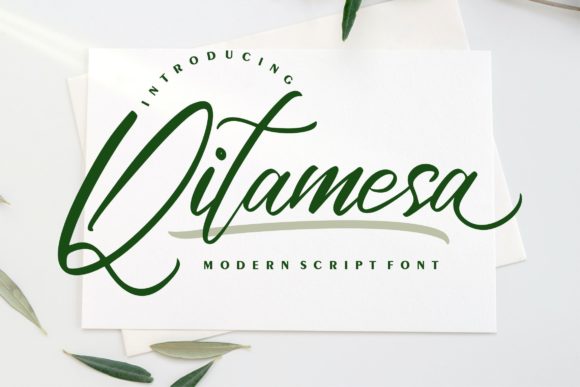
Qitamesa Script: A Calligraphic Font for Modern Creativity
Fonts play a crucial role in visual communication, and among the many script fonts available today, Qitamesa Script stands out for its elegant design and versatility. Designed with a calligraphy-inspired aesthetic, this font blends traditional artistry with modern usability, making it a valuable asset for professionals across various creative fields.
The Art of Qitamesa Script
Qitamesa Script is a hand-drawn font that captures the essence of calligraphy while maintaining a clean and readable structure. Its flowing lines and subtle variations in stroke width give it a natural, organic feel that mimics the work of a skilled calligrapher. This makes it particularly well-suited for projects where a personal or artistic touch is desired.
What sets Qitamesa Script apart is its balance between elegance and practicality. While it has the fluidity of a handwritten script, it avoids excessive ornamentation that could compromise legibility. This ensures that it remains effective even in professional settings such as branding materials, business cards, and digital content.
Key Characteristics of Qitamesa Script
Several features make Qitamesa Script a compelling choice for designers and creators:
- Elegant Flow: The font's curves and transitions are smooth and rhythmic, creating a visually pleasing effect that draws attention without overwhelming the reader.
- High Legibility: Despite its script style, the font maintains clear letterforms that are easy to read, even at smaller sizes.
- Modern Adaptability: Qitamesa Script works well in both print and digital formats, making it suitable for a wide range of applications.
- Versatile Styling: It can be used in both formal and informal contexts, from wedding invitations to social media graphics.
This combination of beauty and functionality makes Qitamesa Script an excellent choice for anyone looking to add a unique yet professional touch to their designs.
Practical Use Cases for Qitamesa Script
Qitamesa Script is not just an artistic expression—it’s also a practical tool that can enhance the visual appeal of various projects. Here are some real-world applications where this font shines:
Event Invitations and Cards
Wedding invitations, birthday cards, and other event-related materials benefit greatly from the graceful appearance of Qitamesa Script. Its calligraphic style adds a sense of occasion and personalization that printed text often lacks.
Branding and Logo Design
For small businesses and entrepreneurs, a strong brand identity is essential. Qitamesa Script can be used in logos, taglines, and marketing collateral to create a distinctive and memorable visual presence.
Digital Content and Social Media
In the world of online publishing and social media, visual consistency is key. Qitamesa Script can be used in blog headers, Instagram captions, and YouTube thumbnails to stand out in a crowded digital space.
Business Cards and Stationery
Professionals who want to leave a lasting impression on clients or colleagues can use Qitamesa Script on business cards, letterheads, and other stationery items. Its refined look conveys professionalism while adding a touch of personality.
Who Benefits Most from Qitamesa Script?
While Qitamesa Script is appealing to a broad audience, certain individuals and industries may find it especially useful:
- Creative Professionals: Designers, illustrators, and typographers will appreciate its artistic quality and adaptability.
- Entrepreneurs and Small Business Owners: Those looking to build a unique brand identity can leverage this font to differentiate themselves from competitors.
- Event Planners and Wedding Coordinators: The font’s elegance makes it ideal for crafting personalized invitations and event materials.
- Content Creators and Bloggers: Using Qitamesa Script in headlines, quotes, and social media posts can help capture attention and boost engagement.
These groups can benefit from using Qitamesa Script in ways that align with their goals, whether it's enhancing aesthetics, improving brand recognition, or creating a more engaging user experience.
Evaluating Quality and Long-Term Value
When considering any font, it's important to assess its quality, reliability, and long-term value. Qitamesa Script offers several advantages that contribute to its overall effectiveness:
Quality: The font is well-crafted with attention to detail, ensuring that each character is consistent and visually appealing. It avoids the inconsistencies often found in poorly designed script fonts.
Usability: With its high legibility and clean structure, Qitamesa Script is easy to use in both digital and print formats. It integrates smoothly with most design software and platforms.
Flexibility: Whether you're designing a logo, a poster, or a website header, this font can be adapted to fit different styles and layouts without losing its character.
Whether you're designing a brand identity, crafting an invitation, or enhancing a digital post, Qitamesa Script offers a unique blend of beauty and practicality that can help you stand out in a competitive market. By understanding its strengths, limitations, and potential applications, you can decide whether this font is the right fit for your next project.